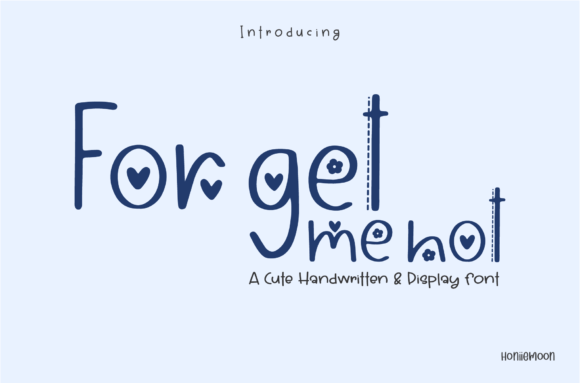
In a world of digital expression, your brand's voice deserves a captivating identity, a melody of pixels that resonates with your audience, leaving an indelible mark on their minds. Introducing Forget Me Not Font, the script font family crafted by Honiiemoon, designed to make your brand sing.
With Forget Me Not, you're not just downloading a font; you're inviting a burst of creativity into your digital space. This cool and fun handwritten font strikes a perfect balance between cute and jolly, ready to infuse life into each of your designs. Let your imagination run wild, knowing that Forget Me Not will keep up, transforming your ideas into visual masterpieces.
Picture your brand's logo, adorned with Forget Me Not's lively strokes, captivating your audience with its cheerful charm. Imagine your social media posts, adorned with Forget Me Not's playful curves, inviting engagement and sparking conversations. Envision your website, pulsating with Forget Me Not's vibrant energy, drawing visitors in and keeping them captivated.
Forget Me Not is more than just a font; it's a versatile chameleon, adapting seamlessly to a myriad of creative endeavors. Whether you're designing eye-catching posters, crafting heartfelt invitations, or creating memorable branding materials, Forget Me Not will be your trusty companion, adding a touch of magic to every project.
And with its PUA encoding, Forget Me Not grants you effortless access to a treasure trove of glyphs and enchanting alternates. Unleash your creativity, knowing that Forget Me Not is your boundless playground, where typographic possibilities dance at your fingertips.